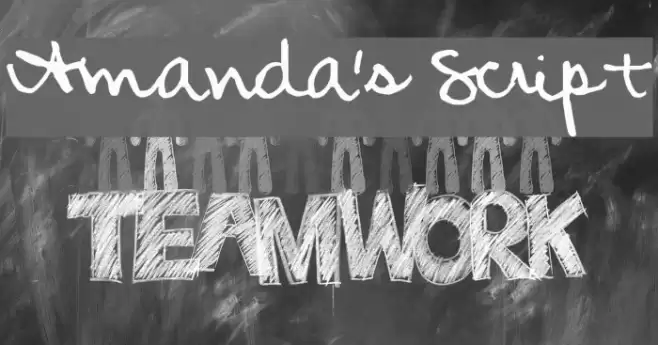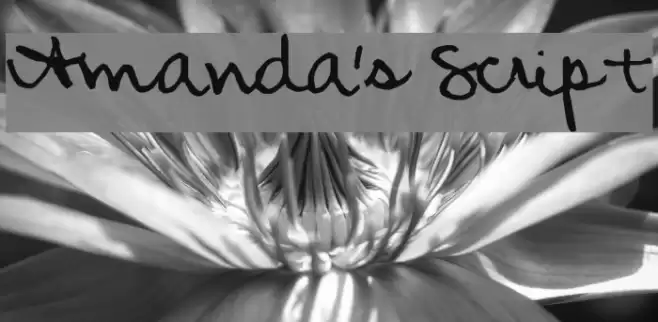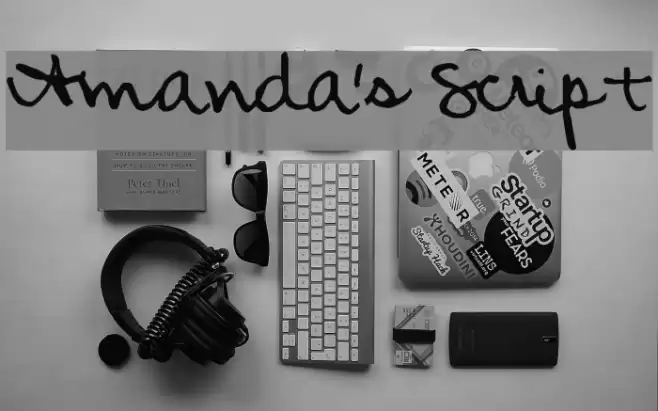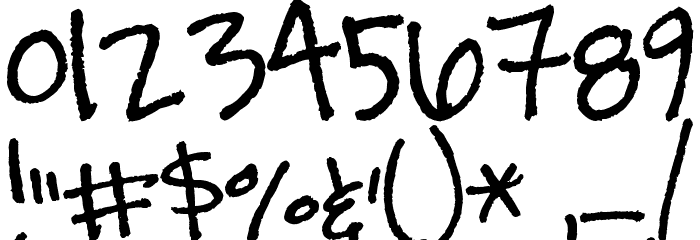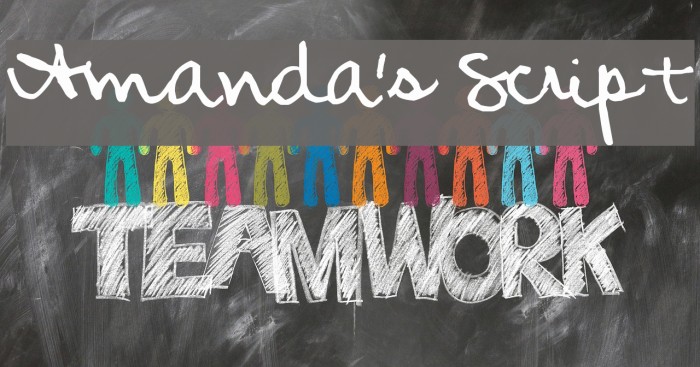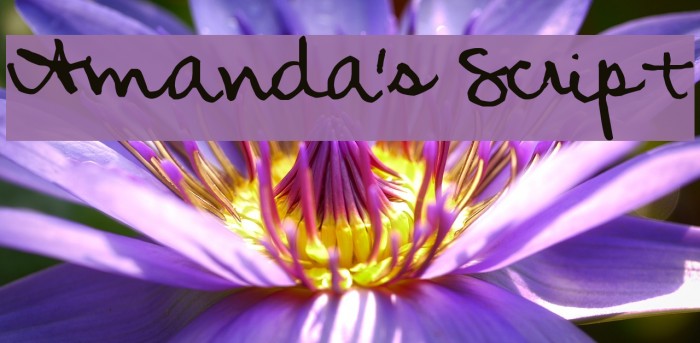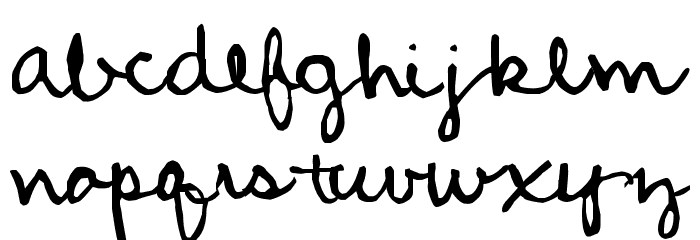
Amanda's Script Font
This font exudes a playful and casual handwritten style, characterized by its fluid and connected strokes. The letters have a natural flow, mimicking the look of genuine handwriting with a slightly messy yet charming appearance. The uppercase letters are bold and expressive, while the lowercase letters maintain a consistent rhythm. Numbers and special characters follow the same handwritten aesthetic, adding to the font's cohesive look. The overall design is informal and friendly, making it suitable for projects that require a personal touch.
A playful, casual handwritten font with fluid, connected strokes from Handwritten fonts.
- Proposed Projects: Ideal for greeting cards, personal invitations, casual branding, and social media graphics.
- Overall Style: Casual
- Use Case: Logos, Headlines, Informal Text